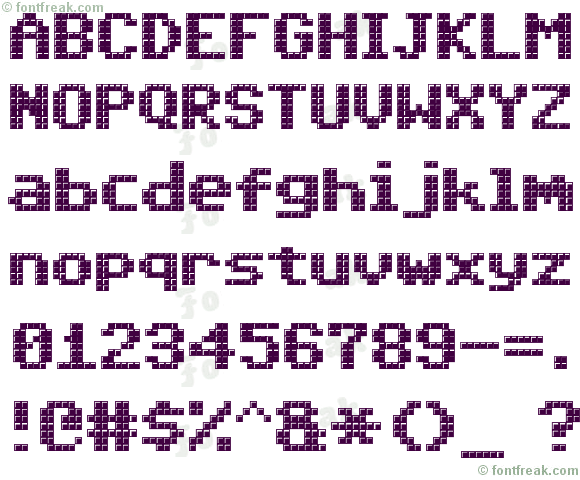
Triad XS
About Triad XS
Triad XS by Freaky Fonts is a striking display font that embodies a unique blend of modernity and creativity, making it an excellent choice for various design projects. This font showcases a distinctive geometric style, characterized by bold, block-like letterforms that create a strong visual impact. The stroke weight is consistent throughout, providing a sense of uniformity, while the spacing between characters is thoughtfully designed to maintain readability and aesthetics. The decorative elements of the font add a playful touch, making it stand out in any application.
The versatility of Triad XS makes it ideal for a range of use cases. Graphic designers may find it perfect for crafting attention-grabbing movie posters, where its boldness can draw viewers in. Small business owners can utilize it for eye-catching restaurant menus, enhancing the dining experience with its modern flair. Additionally, content creators might leverage this font for social media graphics, ensuring their posts are memorable and engaging. Wedding planners could also consider Triad XS for invitations, adding a contemporary twist to traditional designs.
What sets Triad XS apart is its ability to combine boldness with creativity, allowing designers to express their ideas in a visually captivating manner. Its modern aesthetic and versatility ensure that it will remain a favorite for those looking to make a statement in their designs. Whether for print or digital use, Triad XS is a font that truly stands out in the crowded world of typography.